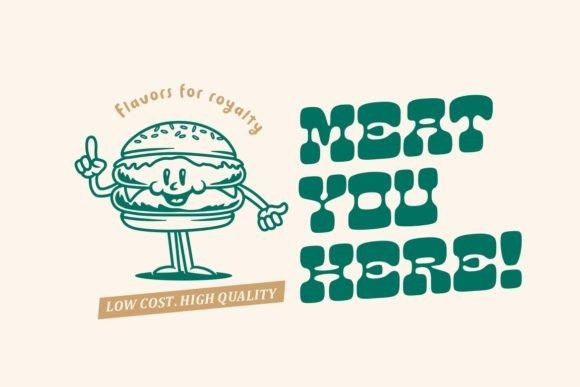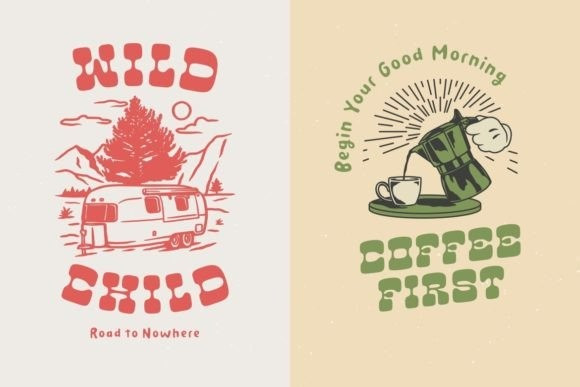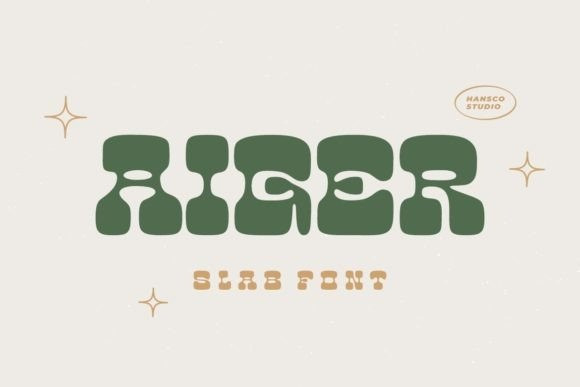
Aiger Font
Aiger Font is a fun and retro display font that takes inspiration from the past and adds a modern twist. Its bold and quirky letterforms capture the essence of vintage design, making it perfect for retro-inspired projects, logos, posters, and more. With its energetic and playful style, Aiger brings a sense of nostalgia and charm to any design.